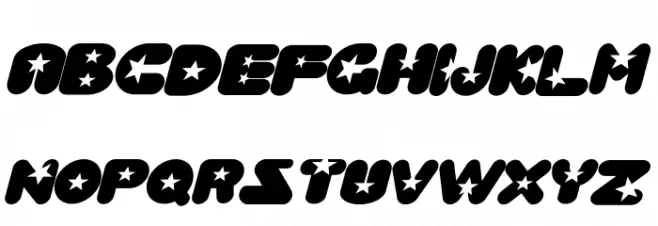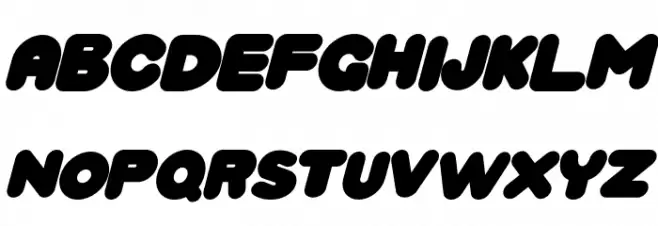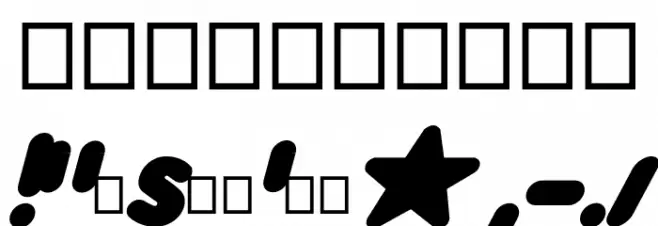
Crystal Universe Oblique Font
CRYSTAL UNIVERSE FONT
Crystal Universe is a font that replicates the font used for the logo of the animated television show Steven Universe (tm).
Steven Universe (tm) was created by Rebecca Sugar.
2015 - Created by MaxiGamer.